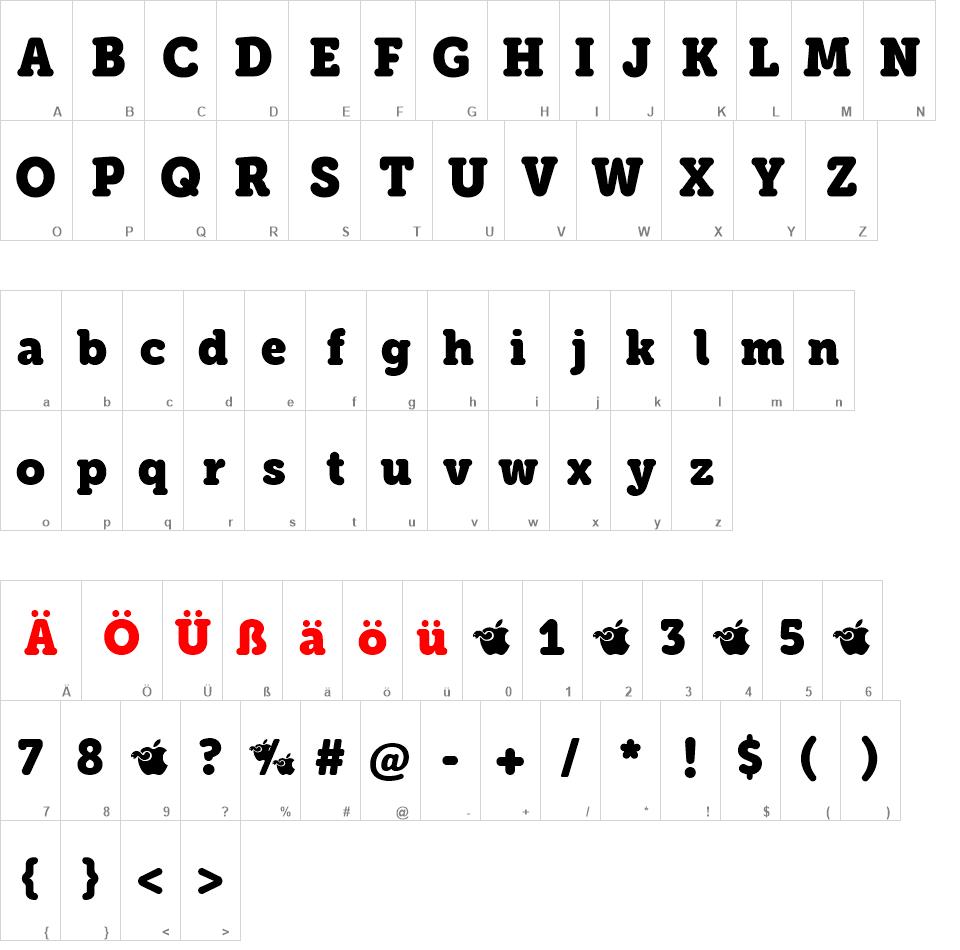
Eacologica Round Slab
eacológica round slab is a chunky slab serif typeface with thick rounded, ideal for very readable sturdy-looking titles. You can use this font for headlines in editorial design, advertising and also for designing posters, signs or posters in all cases readability is guaranteed.